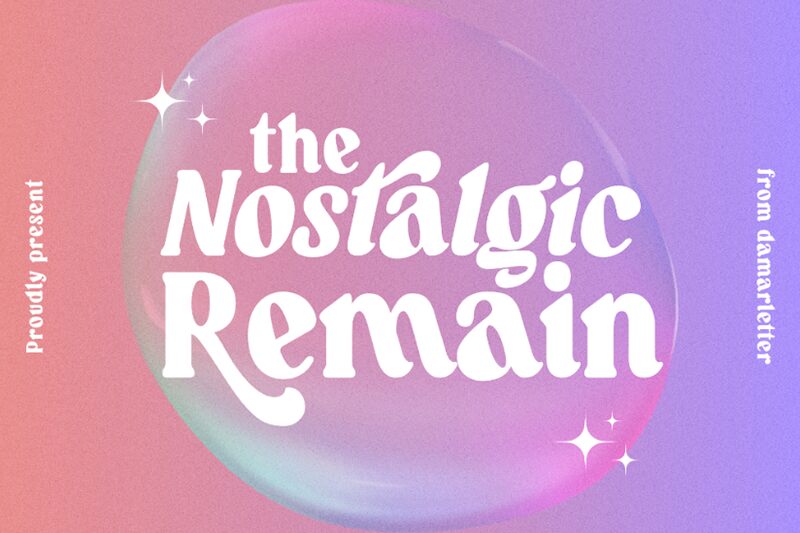
Nostalgic Remain
Nostalgic Remain font, designed by Ardian Nuvianto of Damarletter, stands out with its bold serif style that effortlessly captures a sense of timeless elegance. Its pronounced characters exude confidence and gravitas, drawing the eye with captivating curves and striking details that evoke a classic charm. Each letter seems to tell a story, making it a compelling choice for designs aiming to evoke nostalgia while maintaining modern appeal.
The font's unique aesthetic is perfect for branding, editorial design, or event invitations where an air of sophistication is essential. Whether used in headlines or prominent signage, Nostalgic Remain commands attention and invites admiration, effectively marrying contemporary needs with vintage flair.